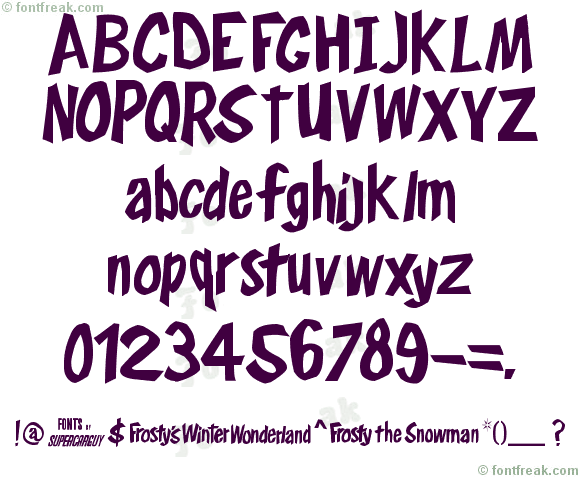
Frosty's Winterland
Frosty's Winterland by Steve Ferrera is a delightful decorative font that captures the essence of winter magic. This freeware font features a playful design characterized by its bold, slightly irregular strokes that evoke the charm of whimsical winter themes. The strokes have a moderate weight with low contrast, allowing for easy readability while maintaining a lighthearted aesthetic. The spacing is well-balanced, ensuring that each letter flows smoothly into the next, making it suitable for various applications.
This font is ideal for a range of creative projects, particularly those that celebrate the winter season. It shines in holiday greeting cards, where its cheerful appearance can bring joy to recipients. Additionally, Frosty's Winterland is perfect for winter-themed party invitations, helping to set a festive tone from the very first glance. Graphic designers will find it particularly useful for creating eye-catching posters or promotional materials for winter events, while small business owners can leverage its unique style for seasonal marketing campaigns. Furthermore, content creators looking to enhance their blogs or social media posts with a touch of whimsy will appreciate this font's distinctive flair.
The target audience for Frosty's Winterland includes graphic designers, small business owners, and content creators who seek a fun and engaging typeface to elevate their projects. This font stands out due to its playful yet legible design, making it versatile for both casual and professional use. Whether you're crafting a heartfelt birthday greeting or designing an enchanting winter-themed poster, Frosty's Winterland font free download offers a refreshing option that captures the spirit of the season, ensuring your work will leave a lasting impression.